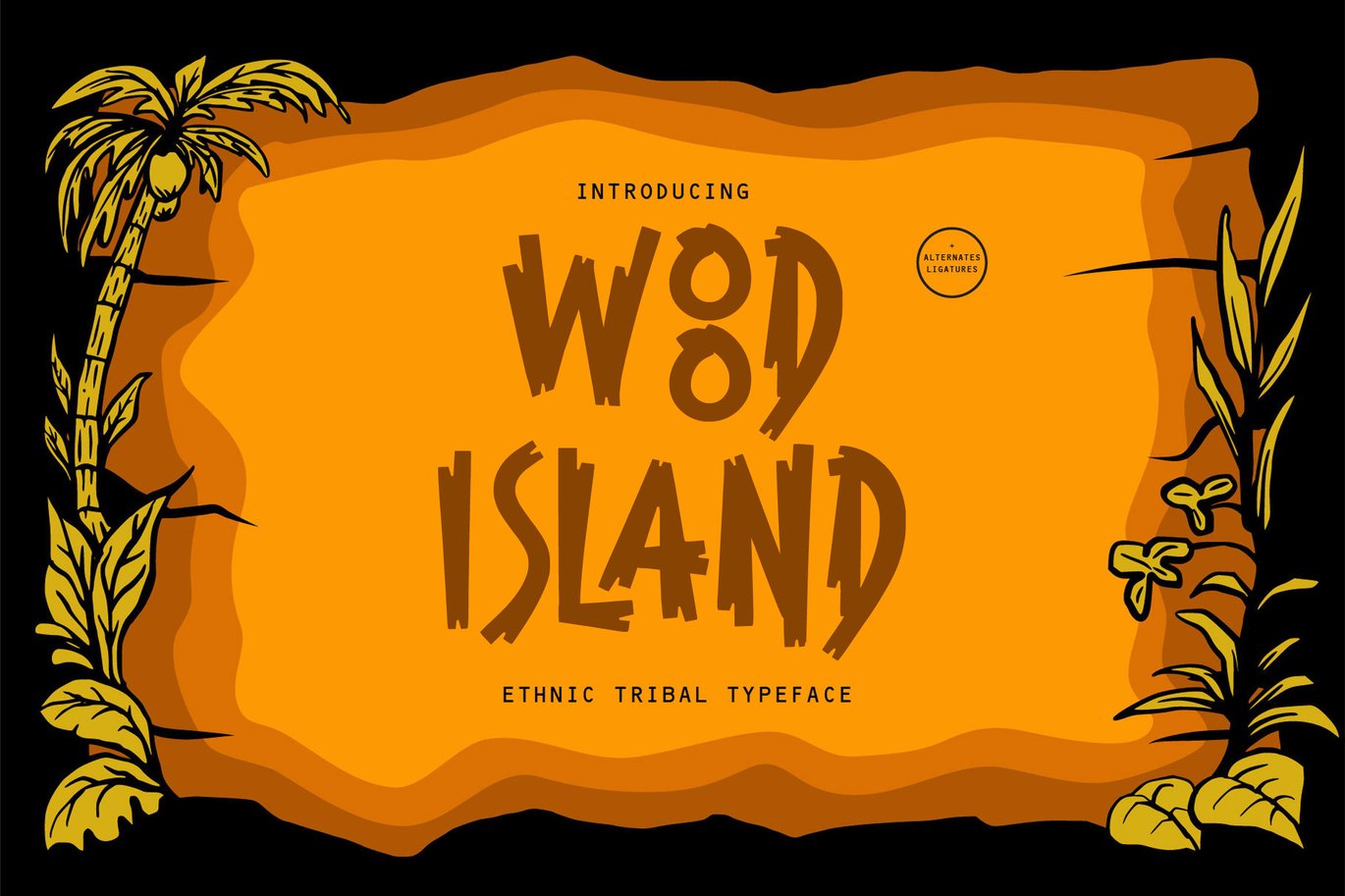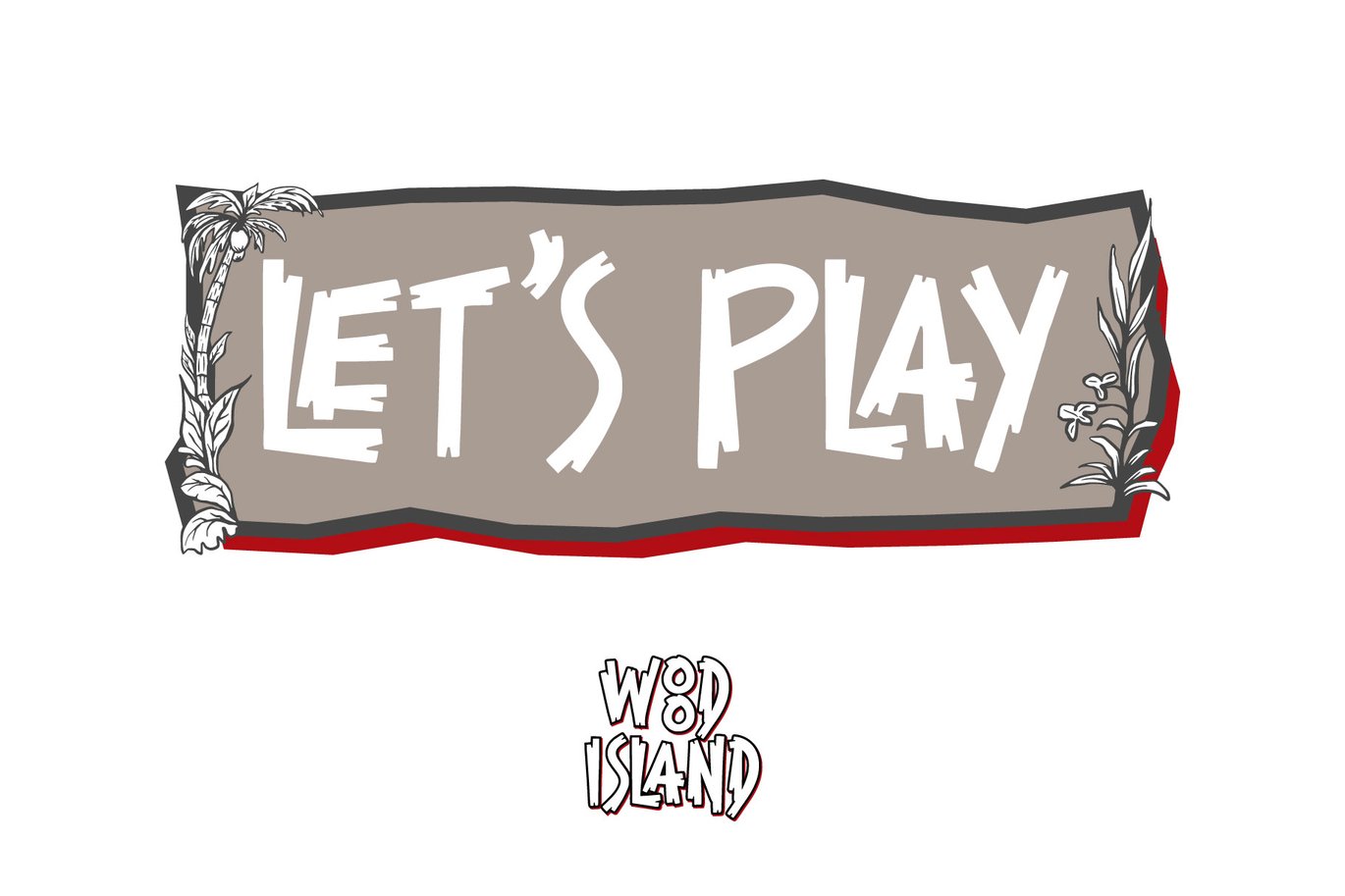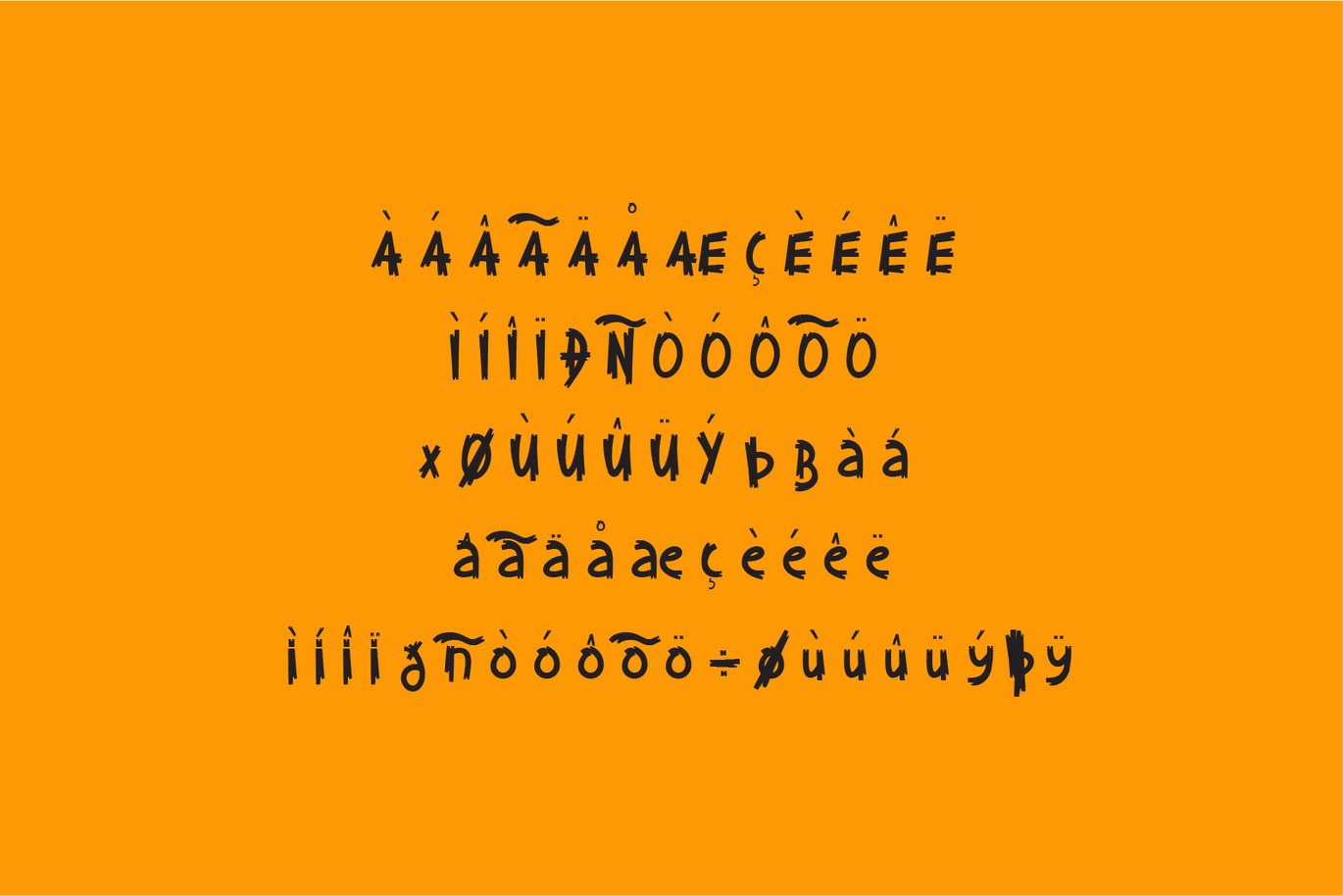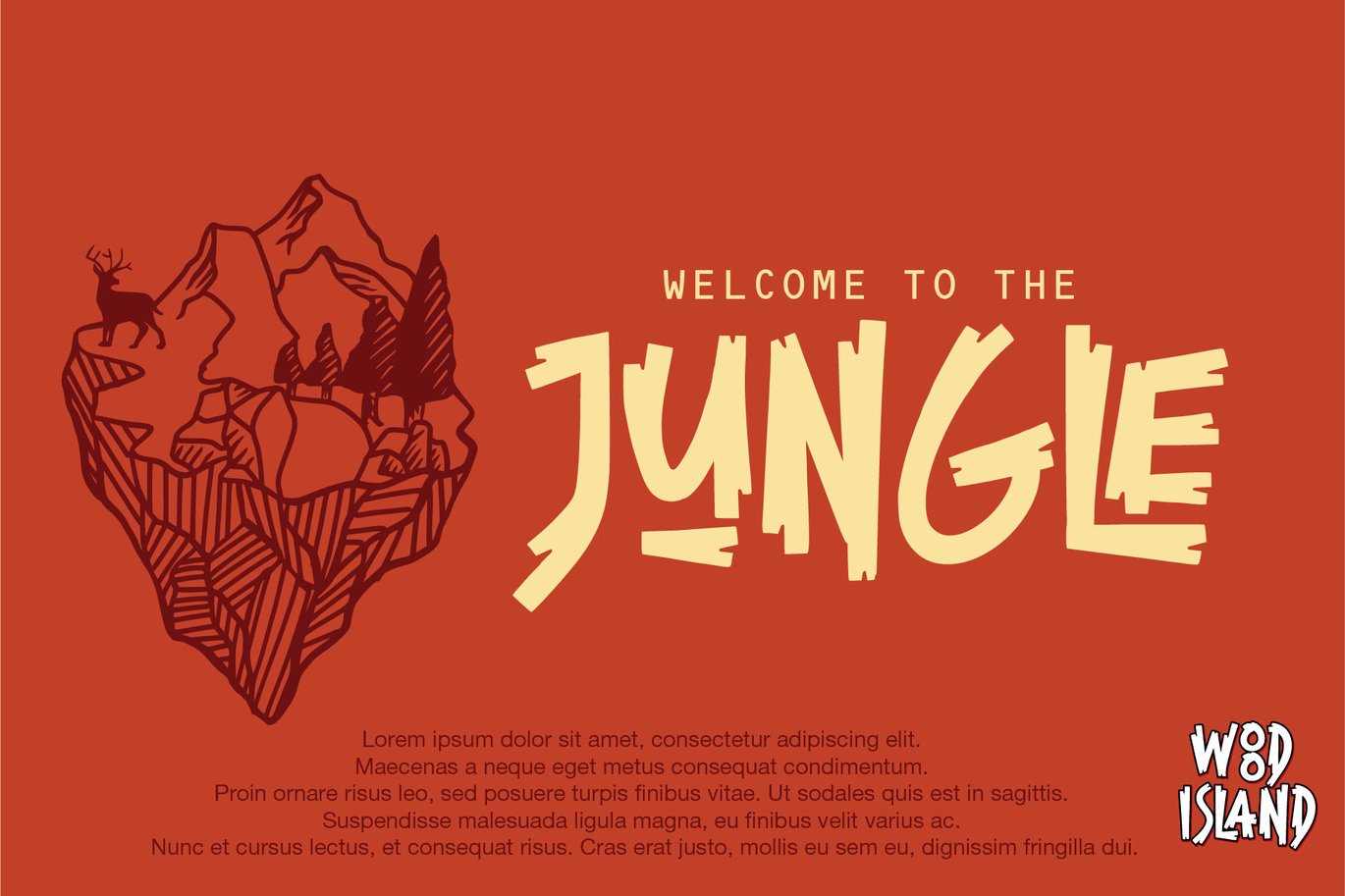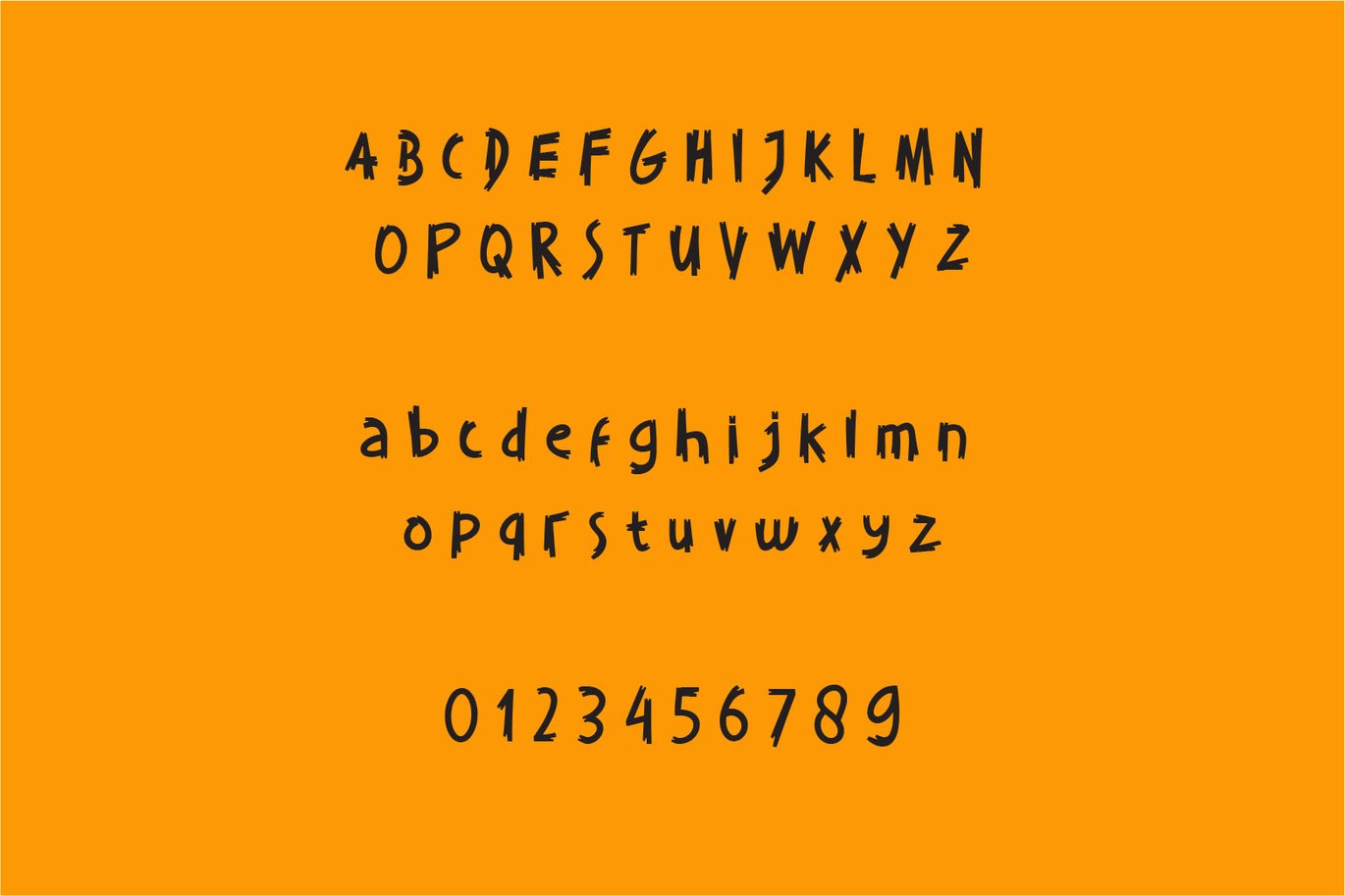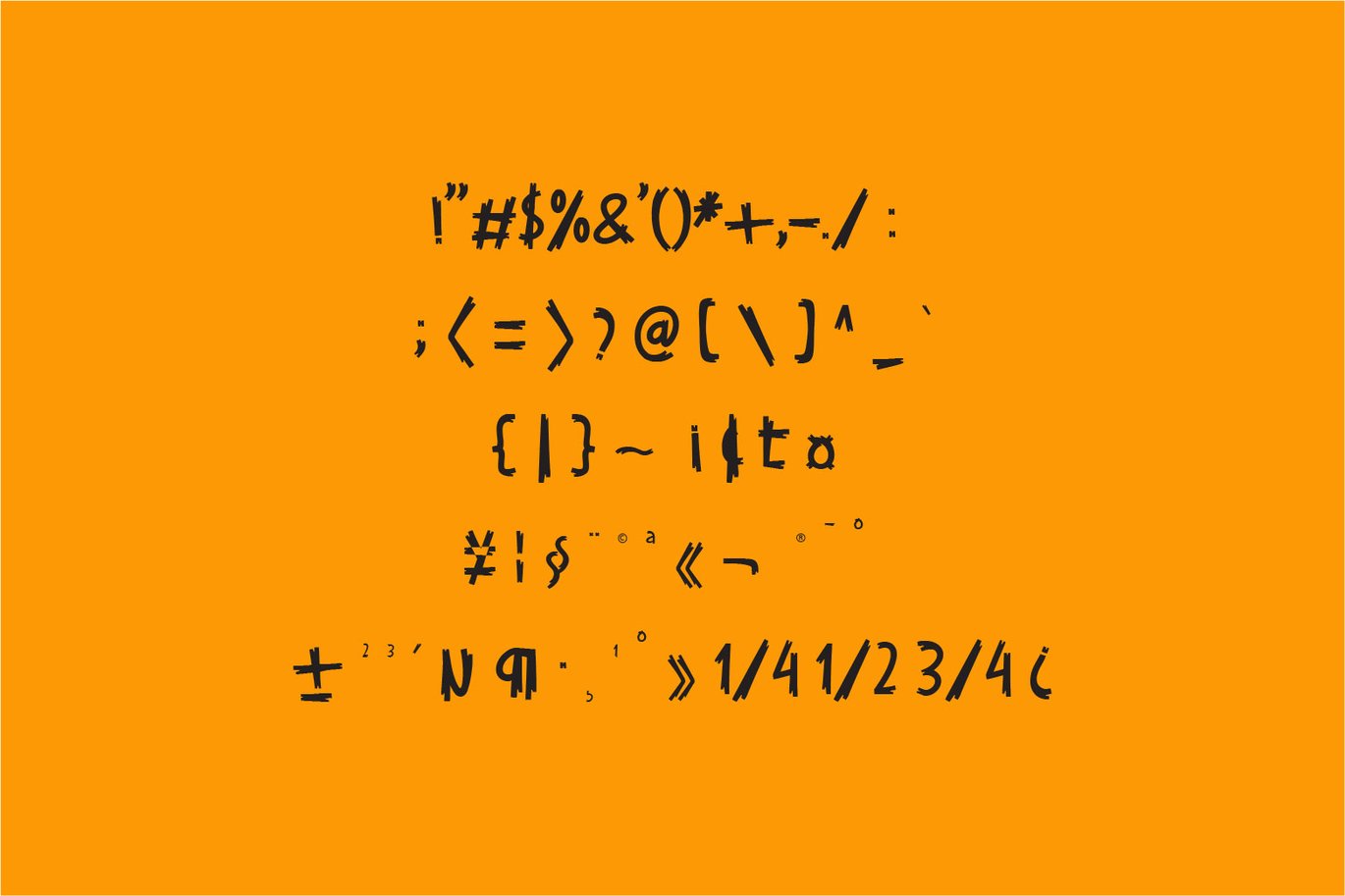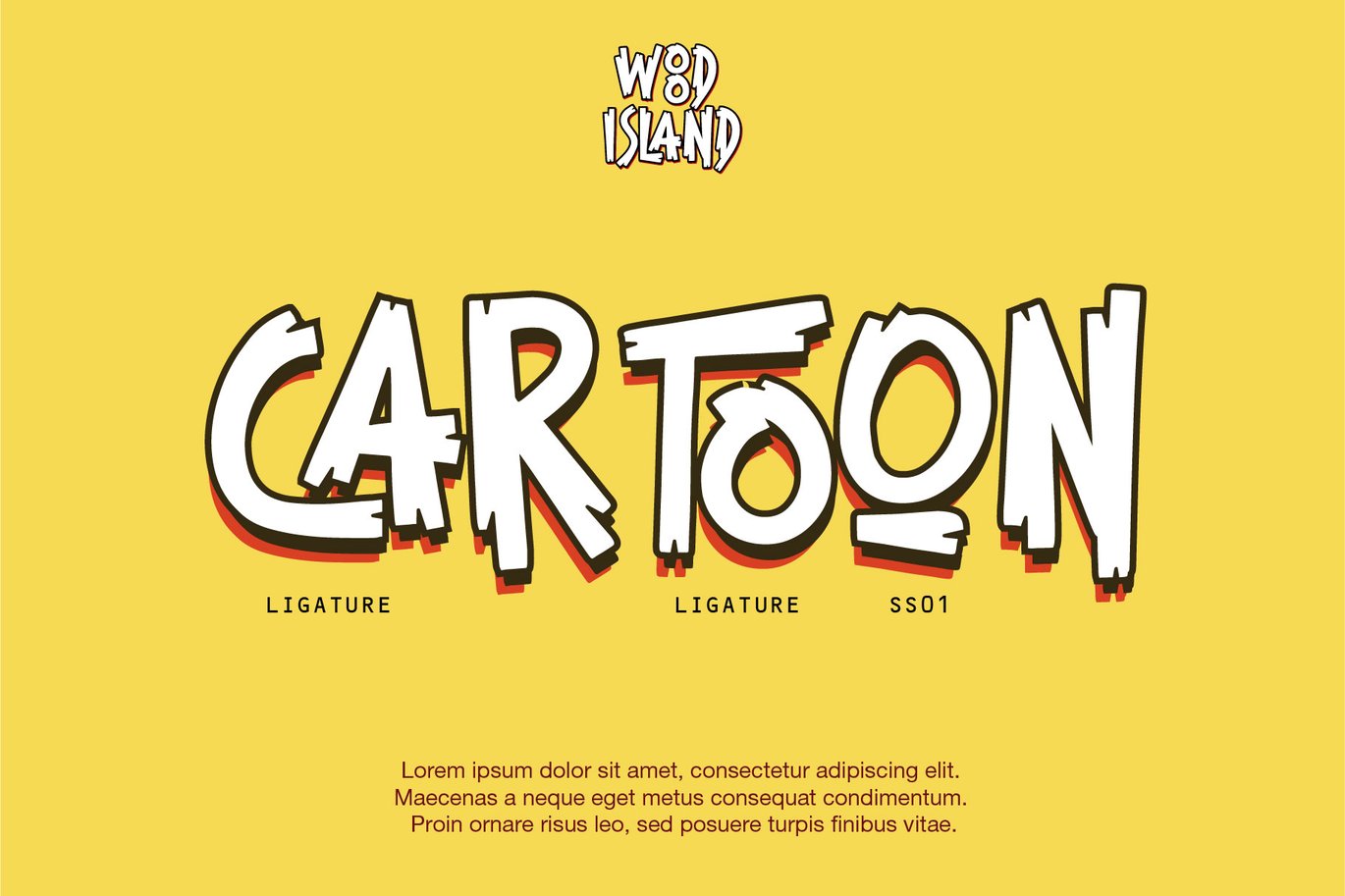
Wood Island – ethnic tribal font
Inspired by traditional ethnic feel and visuals. Great for fun and casual thematic visuals, games, logos, branding, products, campaigns, events, seasonal promotions, traditional concepts, explore different sides of your brand using wood island font.
- Uppercase, Lowercase
- Punctuation & Number,
- Multilingual Support ÀÁÂÃÄÅÆÇÈÉÊËÌÍÎÏÐÑÒÓÔÕÖØÙÚÛÜÝ